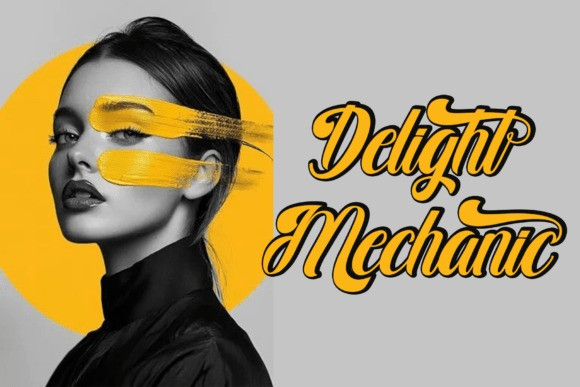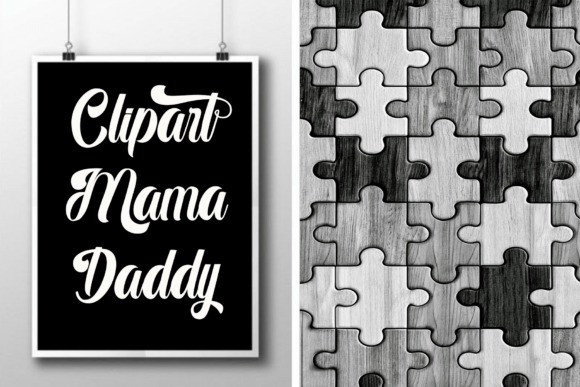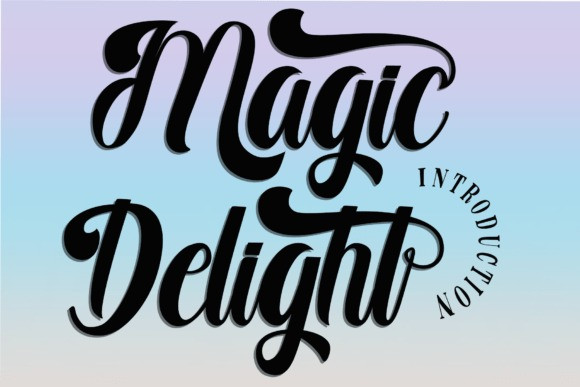
Magic Delight Script Font
Magic Delight Script Font is a beautifully flowing script font that radiates charm and sophistication. With smooth curves and a handwritten feel, it’s perfect for wedding invitations, personal branding, elegant packaging, and romantic quotes.